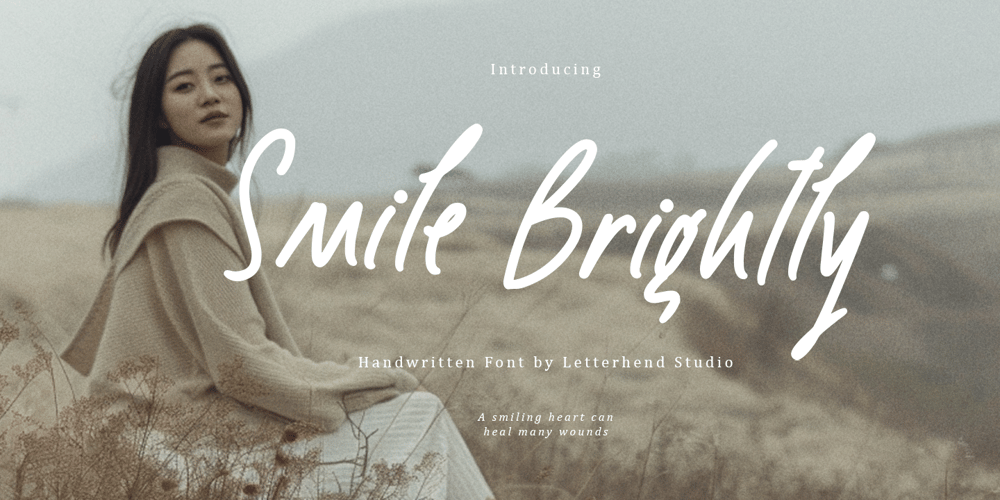
Smile Brightly Font Family was designed by Hendry Juanda and published by Letterhend. Smile Brightly contains 1 styles and family package options. Introducing Smile Brightly , a monoline hand-written font that will add a touch of casual to your designs. This font has a charming vibes that makes it perfect for projects that require a friendly and approachable feel. The letters are slightly wider than usual, giving it a modern yet comfortable appearance.Features : Uppercase & lowercase Numbers and punctuation Multilingual PUA encoded